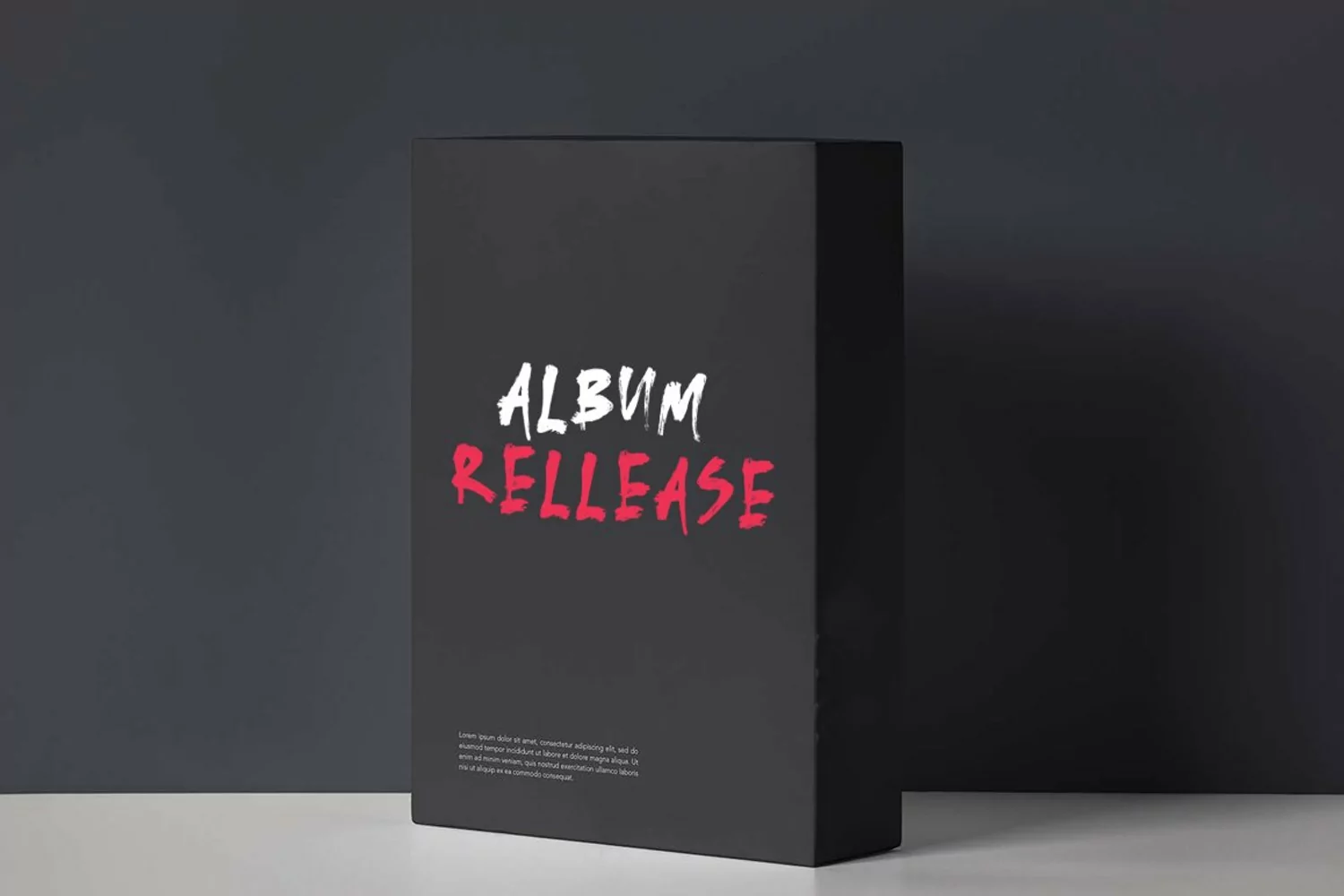
Introducing, Sijusto. A unique textured brush typeface with bold and strong feel. This font perfectly made to be applied especially in logo, and the other various formal forms such as invitations, labels, magazines, books, greeting / wedding cards, packaging, make up, stationery, novels, labels or any type of advertising purpose.